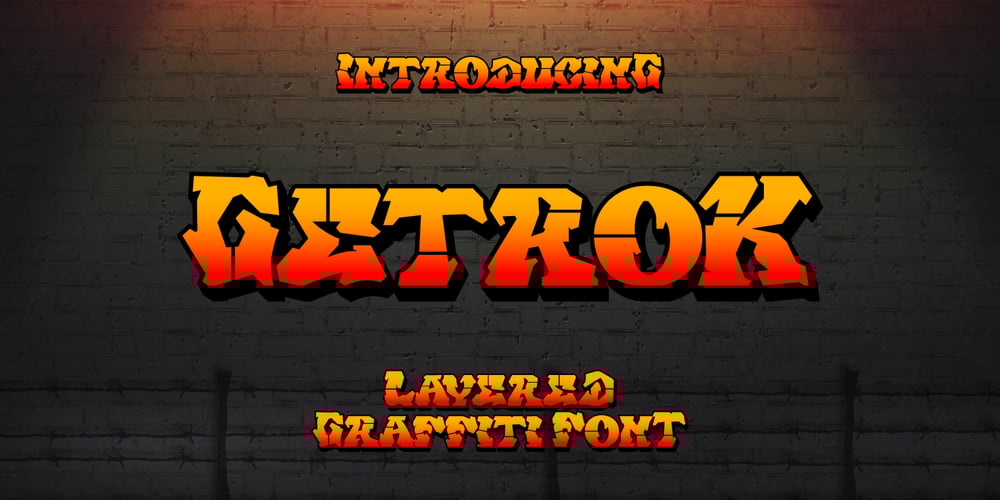
Getrok
Getrok font
Getrok Font Family was designed by Prio Nurokhim Aji and published by Prioritype. Getrok contains 2 styles and family package options. Typeface inspired by the wild style of street graffiti artists. There are two styles, namely regular and extrude. Great for poster design, product packaging, merchandise and so on. Features: Uppercase, Lowercase, Numeral, Punctuation & Multilingual.Thanks.